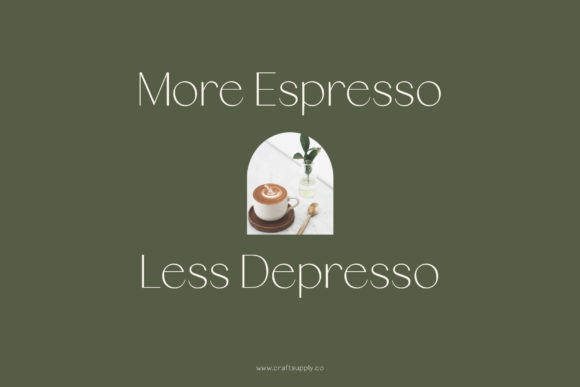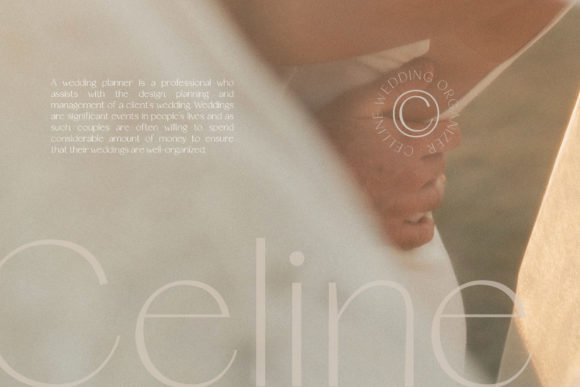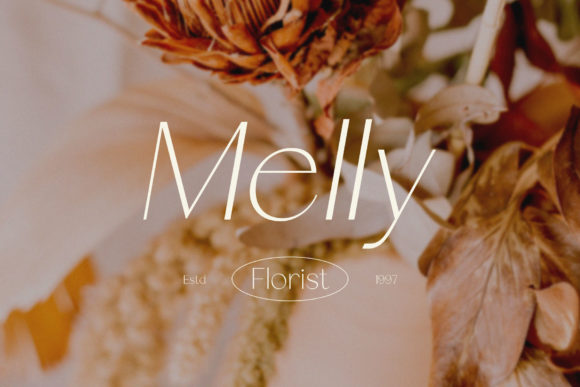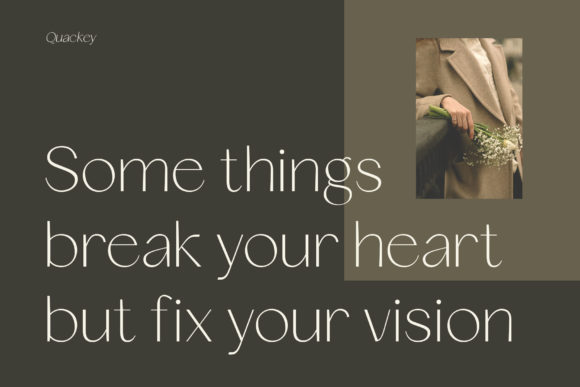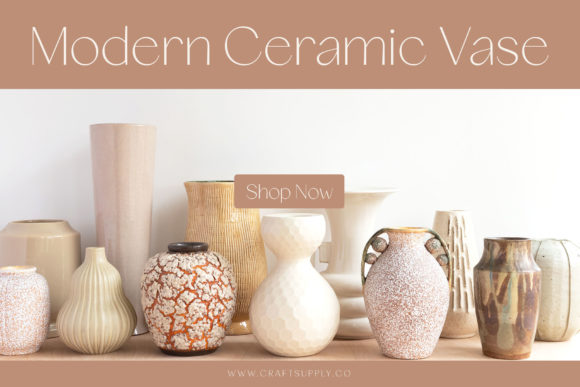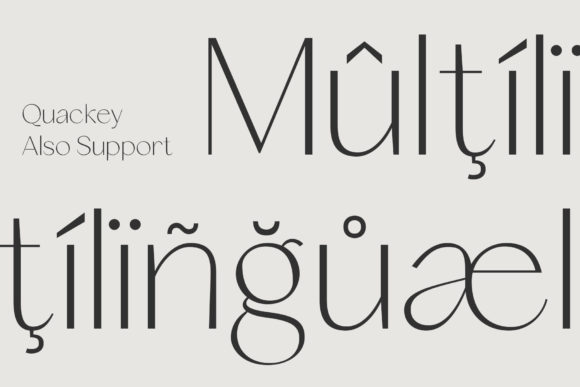
Introduction to Quackey Font
As designers, we’ve all been there – staring at a blank canvas, waiting for the perfect font to bring our creative project to life. The moment when the right font clicks, and our design takes shape, is truly magical. That’s exactly what happened when we discovered the Quackey Font, a stunning sans serif font that exudes elegance and sophistication.
With its thin lettered design, the Quackey Font is perfect for adding a touch of refinement to any design, whether it’s a food menu, poster, flyer, or print. Its high-quality design makes it a valuable resource for designers, and the best part? It’s available for free download, allowing you to explore its endless possibilities without breaking the bank.
Key Features of Quackey Font
- High-quality, unique design with a fun and quirky feel, perfect for creative projects and design resources.
- Designed to be highly legible, even at small font sizes, making it ideal for use in a variety of design applications.
Honest Review: Quackey Font
I recently had the chance to work with the Quackey Font, and I must say it’s been a pleasant experience. The font is perfect for creating eye-catching visuals for any design project.
Here are some of the things that I really like about the Quackey Font:
- ✨ High quality typography: The Quackey Font has beautiful and well-designed characters that add a touch of sophistication to any design.
- ✨ Transparent background: This allows for seamless integration with any design element, making it a great resource for designers.
- ⚠️ Limited character set: The Quackey Font doesn’t have as many characters as I would like, which can make it difficult to use in certain situations.
- ⚠️ Not suitable for small text: Due to its unique design, the Quackey Font can be difficult to read in small sizes, which may limit its use in certain design projects.
Overall, I would highly recommend the Quackey Font for any design project that requires a high-quality, creative font. It’s a free download, making it a valuable resource for designers of all levels.
Tips for Getting the Most Out of Quackey Font
For the best results, use Quackey Font on a high-quality image with a transparent background. This will allow the font to stand out and add a touch of creativity to your design. You can also experiment with different font sizes and styles to create a unique look.
Quackey Font is ideal for a range of creative projects, including logos, social media graphics, and infographics. Its high-quality design and transparent background make it perfect for use in presentations, posters, and other visual materials.